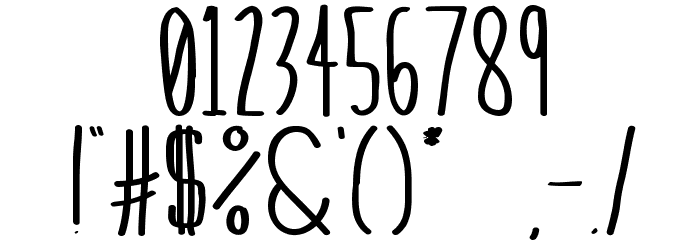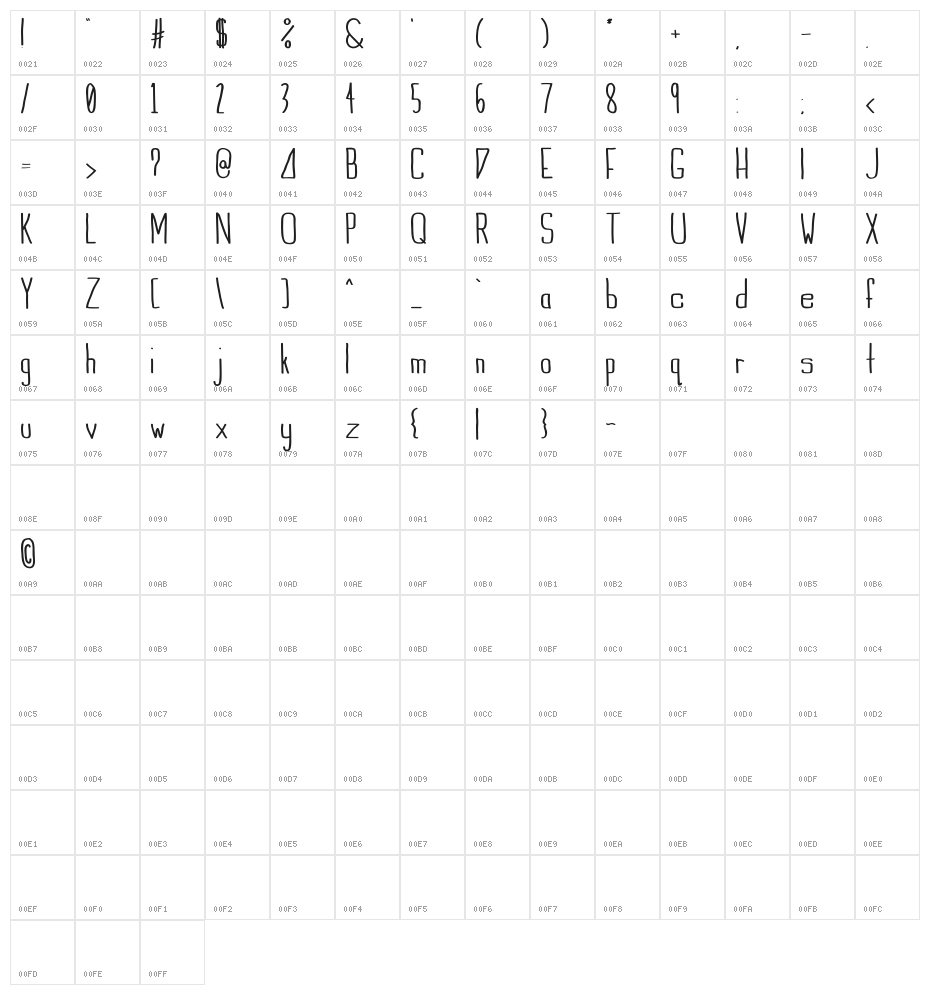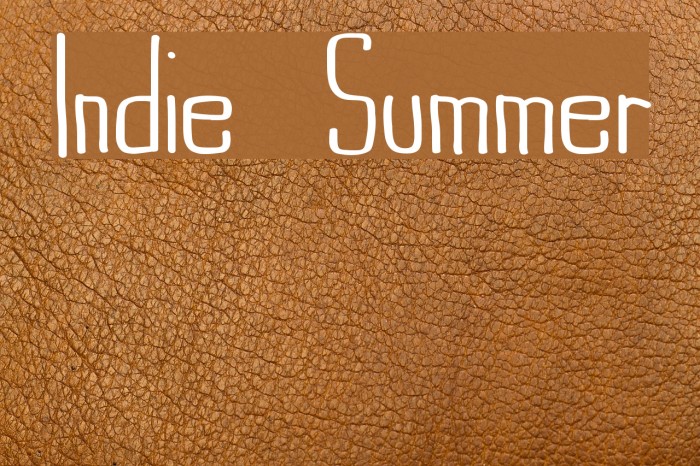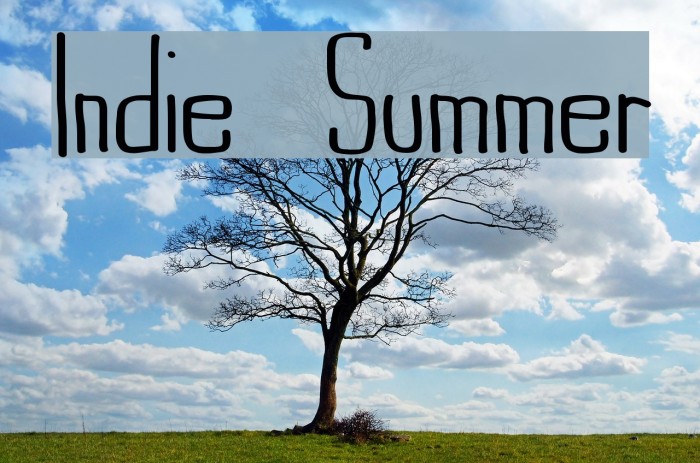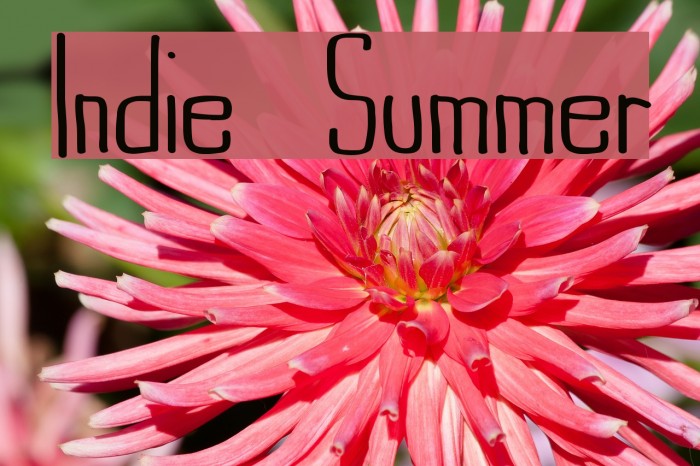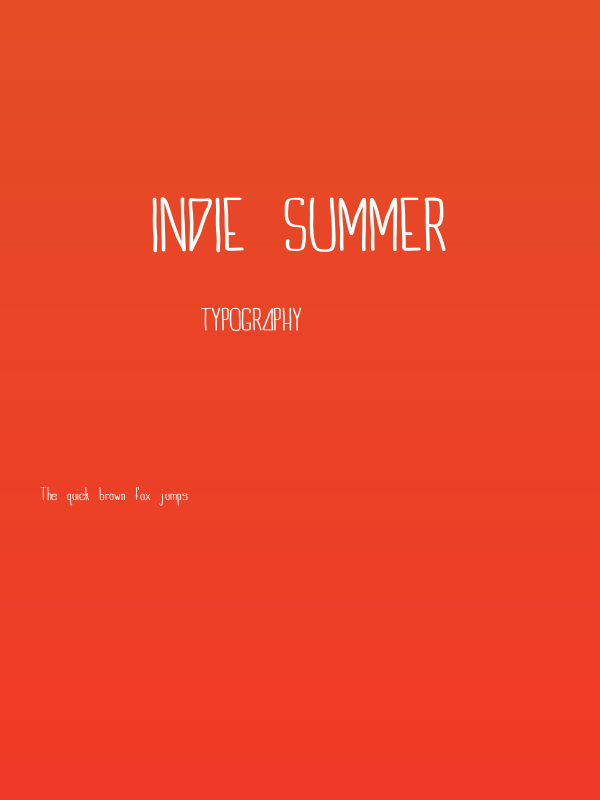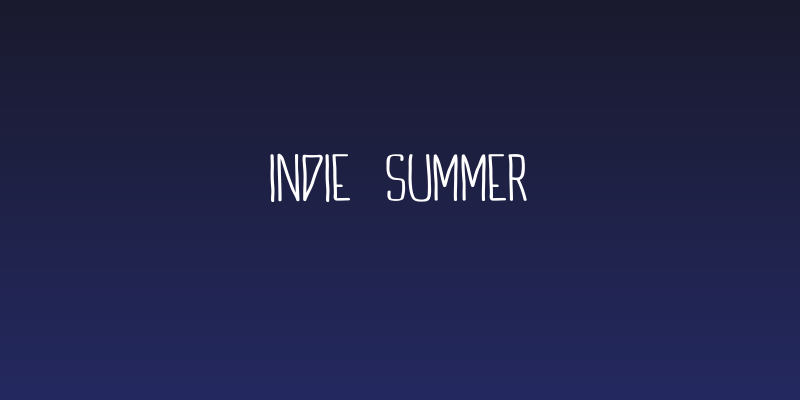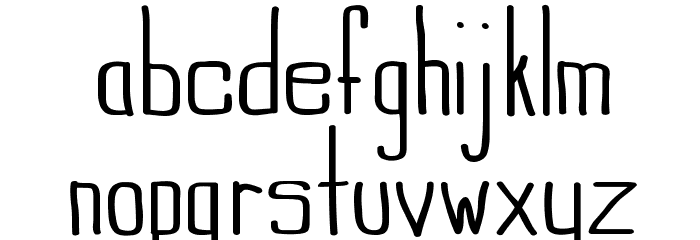
Indie Summer Font
Indie Summer Description
This font features a quirky and playful design with a hand-drawn aesthetic. The uppercase letters have a unique geometric style, with some characters like 'A' and 'V' having distinct triangular shapes. The lowercase letters maintain a consistent height and have a slightly rounded appearance, adding to the casual feel. The numbers are tall and narrow, complementing the overall style. Special characters are creatively designed, fitting well with the font's artistic theme. The strokes are consistent in width, providing a uniform look across all characters.